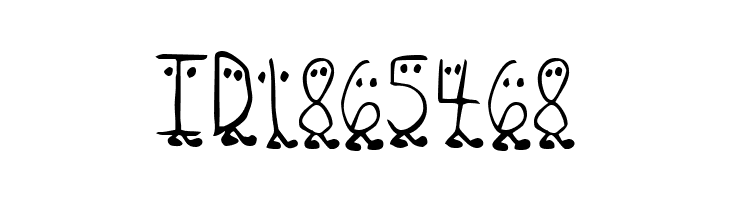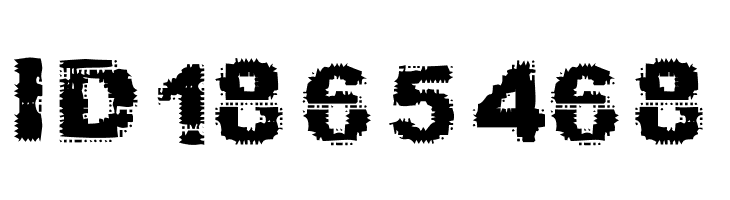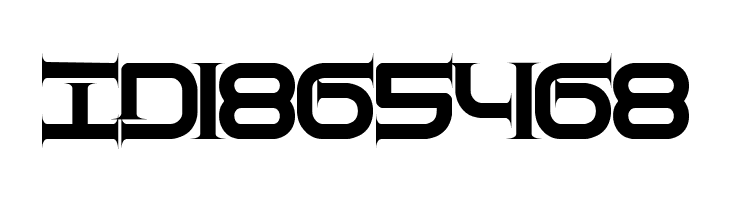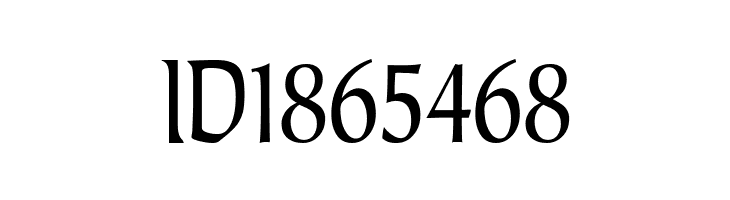
A whimsical and playful font with decorative, face-like elements.
A bold, distressed font with a grunge texture and consistent character width.
A futuristic font with sharp, angular lines and a tapering effect.
A modern serif font with sharp, angular serifs and clean lines.